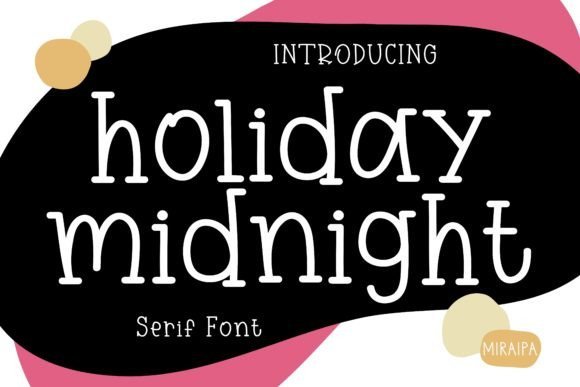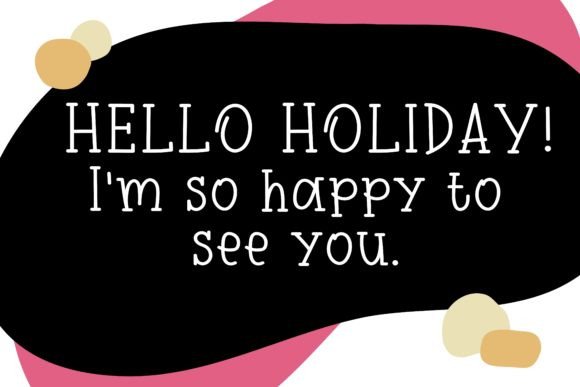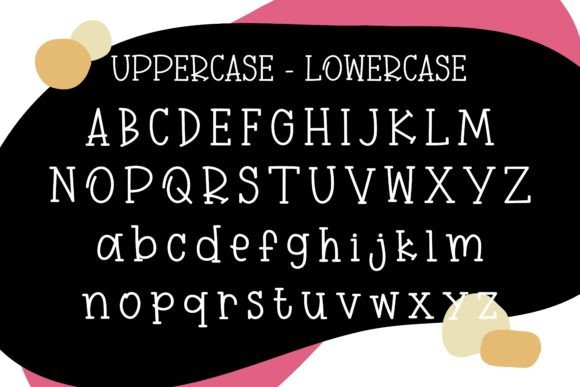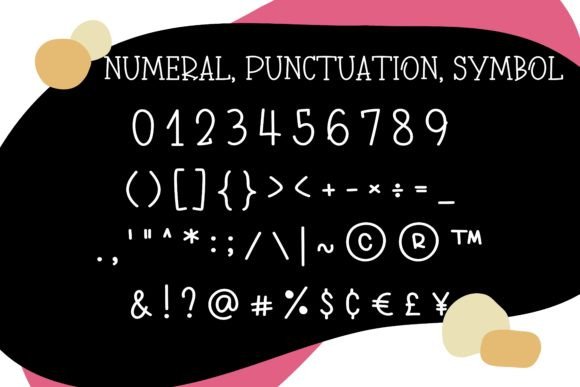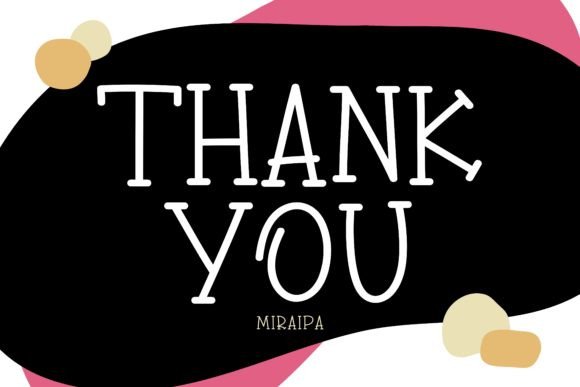
Unleashing the Magic of the Season with Holiday Midnight Font
As the calendar flips to a new month, we can’t help but feel the excitement building up – holiday season is just around the corner! It’s the perfect time to get creative, plan those festive projects, and add a dash of cheer to our designs. Whether it’s a DIY decor, a heartfelt invitation, or a playful social media post, we want it to be perfect.
Enter Holiday Midnight Font – a charming serif font that embodies the warmth and friendliness of the season. Designed to bring a smile to your face, this font is perfect for adding a personal touch to your projects. Whether you’re planning a wedding, a party, or simply want to brighten up your social media feed, Holiday Midnight Font is the ideal companion for your creative journey.
- Unique Characteristics: Distinctive, elegant, and festive design; ideal for holiday-themed projects, invitations, and greeting cards
Holiday Midnight Font Review
As a designer, I’ve had the chance to work with the Holiday Midnight font, and here’s my honest review.
- The font’s unique blend of elegance and playfulness makes it perfect for holiday-themed designs.
- Its bold and italic variations add a nice touch to headings and titles.
- The font’s scalability works well across various resolutions and sizes.
- The included ligatures and swashes make it easy to add a personal touch to designs.
- The font’s weight is a bit too light for body text, making it hard to read at smaller sizes.
- The italic variation could be more consistent, as some letters don’t quite fit the expected slant.
- The font’s spacing could be improved, as it sometimes looks a bit cramped or loose.
Overall, I think the Holiday Midnight font is a great addition to any designer’s toolkit. While it has its limitations, its unique charm and versatility make it perfect for holiday-themed designs, invitations, and more.
Tips for Getting the Most Out of Holiday Midnight Font
Here are some tips for getting the most out of Holiday Midnight Font:
- Use it to create a festive and playful atmosphere in your designs.
- Pair it with bold colors and bold lines to create a striking visual effect.
- Experiment with different font sizes and styles to add depth and interest to your designs.
Here are some common use cases for Holiday Midnight Font:
- Holiday cards and invitations.
- Party decorations and flyers.
- Gift tags and wrapping paper.
Alternatives to Holiday Midnight Font
Bebas Neue is a modern sans-serif font that works well for headings and titles. It’s a great alternative to Holiday Midnight Font when you want a clean and minimalistic look. Bebas Neue has a more geometric feel compared to Holiday Midnight Font’s elegant, handwritten style.
Alex Brush is a beautiful script font that’s perfect for adding a touch of elegance to your designs. It’s a great choice when you want to create a sophisticated and luxurious feel. Compared to Holiday Midnight Font, Alex Brush has a more refined and polished look.
Great Vibes is a stylish script font that’s great for headings and titles. It’s a good alternative to Holiday Midnight Font when you want a more casual and laid-back feel. Great Vibes has a more relaxed and organic feel compared to Holiday Midnight Font’s more formal style.
Playfair Display is an elegant serif font that’s perfect for creating a luxurious and sophisticated look. It’s a great choice when you want to add a touch of sophistication to your designs. Compared to Holiday Midnight Font, Playfair Display has a more refined and classic feel.